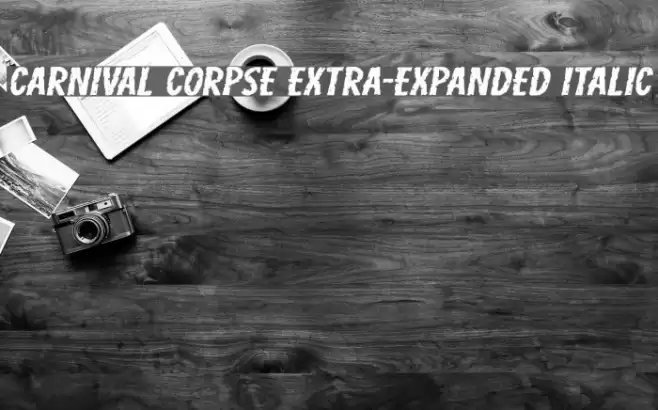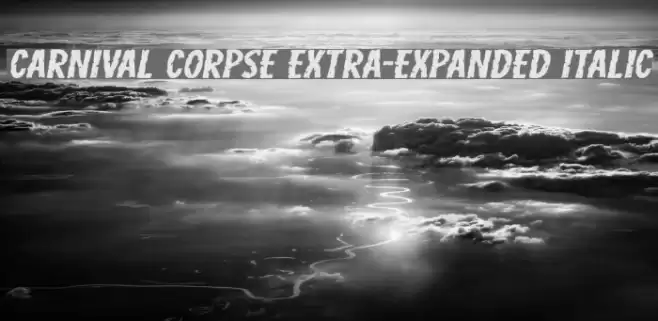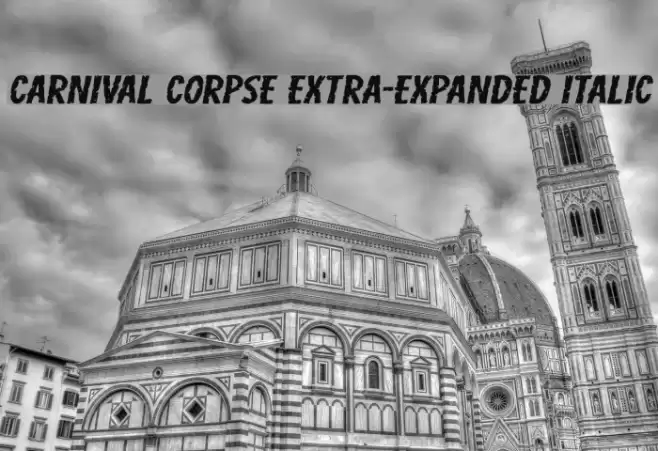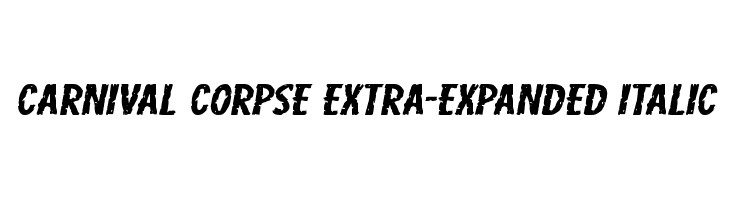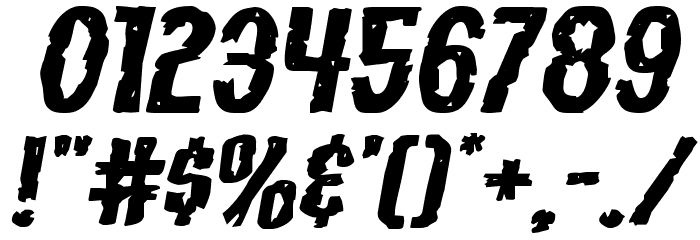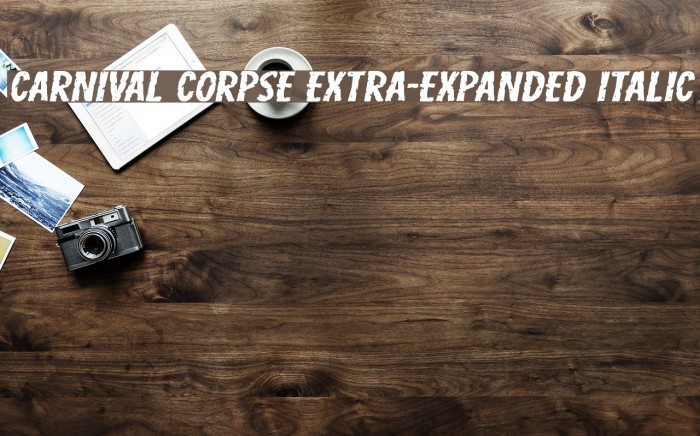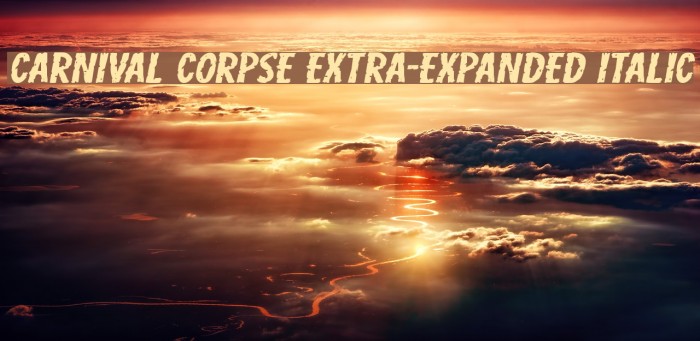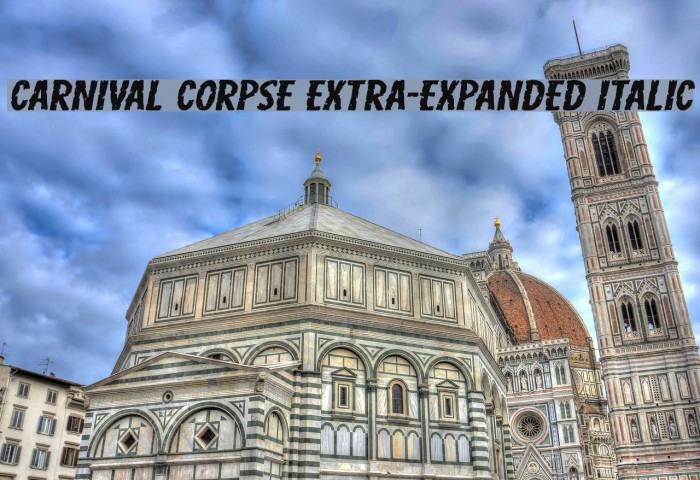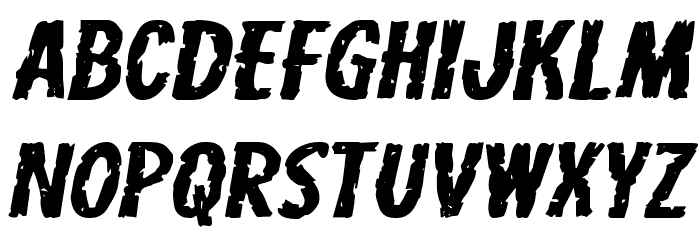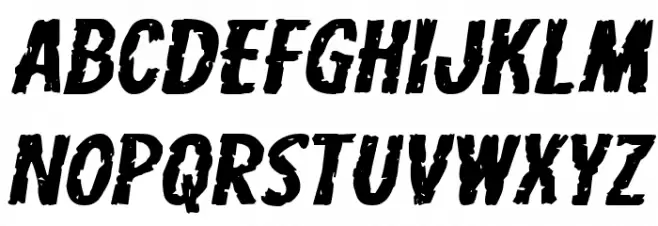
Carnival Corpse Extra-Expanded Italic Font
Carnival Corpse Extra-Expanded Italic Description
This font features a bold and dynamic style with a distressed, grunge-like appearance. The characters are heavily textured, giving them a rugged and edgy look. The extra-expanded width adds to its dramatic presence, making it stand out in any design. The italic slant further enhances its energetic and rebellious vibe. Each letter is uniquely crafted with irregular edges and varying stroke thickness, contributing to its chaotic yet captivating aesthetic. This font is perfect for projects that require a bold statement and a touch of unconventional flair.
A bold, distressed, and extra-expanded italic font with a grunge aesthetic from Horror fonts.
- Proposed Projects: Ideal for music album covers, event posters, streetwear branding, and edgy graphic designs.